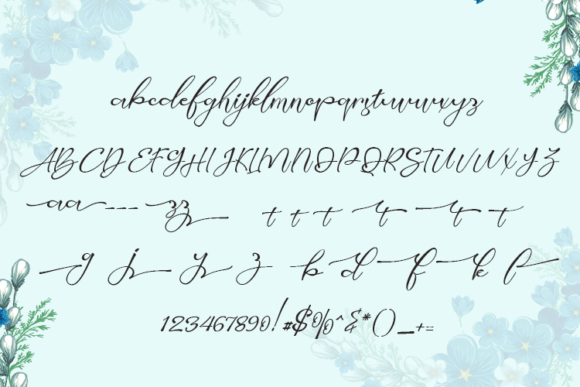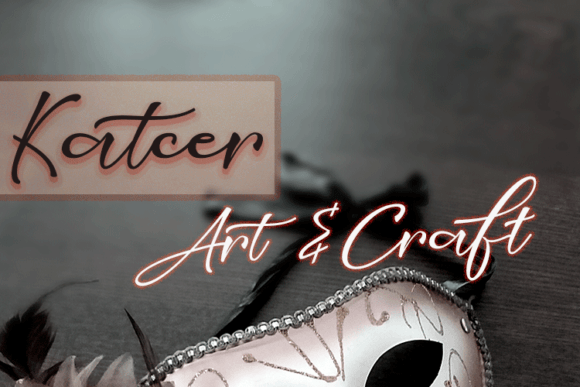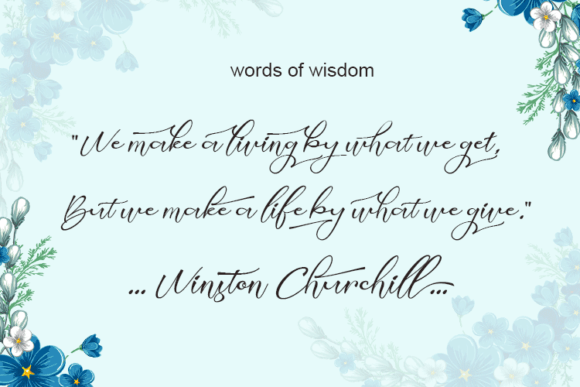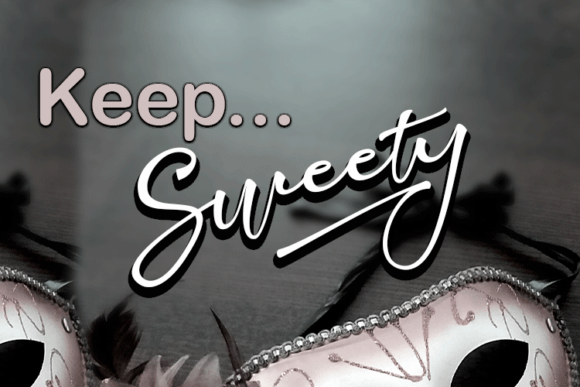
Brooklyn Font
About Brooklyn Font
Brooklyn is a dazzling script font that stands out with its meticulously crafted and highly detailed design. Its sophistication and attention to detail make it a standout asset for your font library, capable of enhancing a wide range of creative projects, regardless of the topic or theme.
The neatly crafted letterforms of Brooklyn contribute to its overall elegance and readability. This font’s level of detail ensures that it makes a significant impact on any design, adding a touch of refinement and visual appeal.
Whether you’re working on branding, invitations, posters, or any other creative endeavor, Brooklyn’s versatility ensures that it can seamlessly adapt to various design contexts. Its dazzling script style adds a sense of luxury and uniqueness to your creations.
The fact that Brooklyn is PUA encoded is a noteworthy feature. This encoding allows easy access to all glyphs and swashes, providing you with enhanced flexibility and creative freedom. You can effortlessly incorporate additional elements and variations, further customizing the font to suit your specific design needs.
In summary, Brooklyn goes beyond being just a font; it’s a meticulously crafted design tool that brings sophistication and versatility to your projects. Its dazzling script style, combined with PUA encoding, makes it an excellent choice for elevating your creations and adding a touch of detailed elegance to any topic or theme.